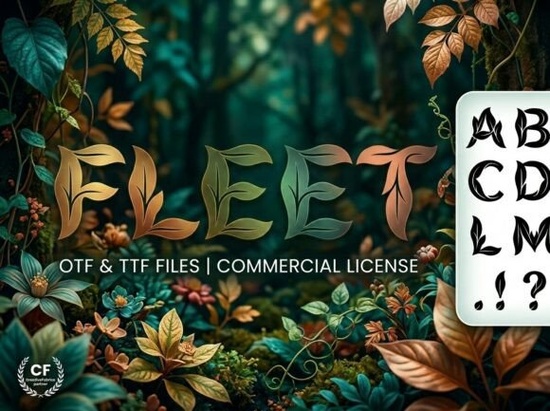
Fleet Font is a standout choice for anyone looking to add a unique touch to their design projects. This decorative display font is crafted to grab attention and make a statement. Whether you're working on logos, headlines, or creative packaging, Fleet Font offers a bold and artistic look that sets your work apart. Its clean yet distinctive style makes it ideal for designers, crafters, and small business owners who want to express creativity without sacrificing professionalism.
One of the key features of Fleet Font is its versatility. It works well in a variety of design contexts, from eye-catching banners to elegant branding materials. The font’s strong visual personality ensures that every letter stands out, making it perfect for situations where you need a high-impact design. Because it's available in both OTF and TTF formats, you can use it across different software and devices without compatibility issues.
Why choose Fleet Font? For starters, it’s designed with a focus on artistic elements that make each character feel like a piece of art. This makes it especially useful for projects that require a custom, handcrafted feel. The fact that it’s all-caps means it’s optimized for headlines and logos, where uppercase letters often have more visual weight. If you’re looking for a font that adds personality and flair, Fleet Font is an excellent option.
What Makes Fleet Font Unique?
Fleet Font isn’t just another decorative typeface it’s built with a specific purpose in mind. Unlike many fonts that try to be everything to everyone, this one focuses on delivering a strong, consistent look that works across multiple design applications. Its artistic details are subtle enough to maintain a professional appearance but bold enough to stand out in any layout.
Who Can Benefit from Using Fleet Font?
Fleet Font is particularly useful for designers who want to add a unique touch to their work. It’s also a great choice for crafters looking to create custom labels, stickers, or handmade items with a professional look. Small businesses that rely on visual branding will find that this font helps reinforce their identity with a strong, memorable style.
Creative hobbyists who enjoy experimenting with typography will appreciate the font’s ability to bring ideas to life. Its all-caps design makes it easy to use in projects that require a clean, modern aesthetic. Plus, since it doesn’t include lowercase letters, it avoids the clutter that can come with more complex typefaces.
Getting Started with Fleet Font
When working with Fleet Font, consider the context in which it will be used. Since it’s a display font, it’s best suited for short phrases rather than long paragraphs. This helps maintain readability while still allowing the font to shine. Experimenting with different sizes and colors can also help you find the right balance between impact and legibility.
Fleet Font is available for purchase on Creative Fabrica, where you can explore other similar fonts like Feryl Font. These resources can help you find the perfect typeface for your next project.
Before purchasing, make sure to check the license terms to understand how you can use the font in your designs. Most Creative Fabrica fonts are available for commercial use, but it’s always good to verify the details. Once you’ve added Fleet Font to your collection, you’ll have a powerful tool for creating visually striking designs that capture attention and convey your message effectively.
Consider adding Fleet Font to your design toolkit if you're looking for a way to elevate your visual projects. Its combination of style, functionality, and ease of use makes it a valuable asset for a wide range of creative applications.
- Pair it with simpler fonts for better readability
- Use it for headlines, logos, and decorative elements